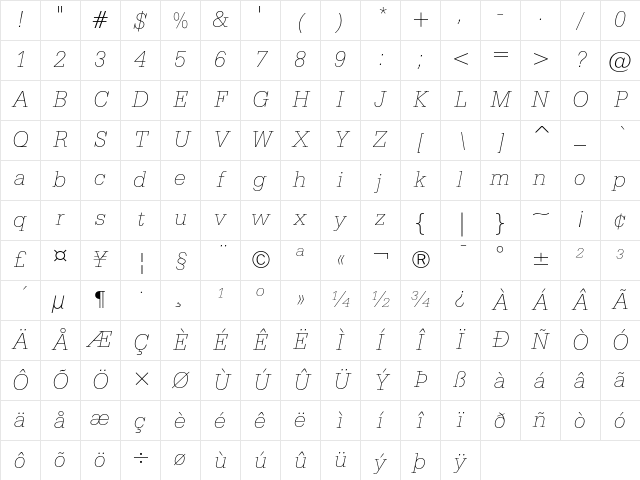
Serifa Thin Italic
Complete Serifa Thin Italic glyph index. Displaying only characters natively supported by Serifa Thin Italic font.
Design Context for Serifa
Serifa carries the refined structure of traditional serif typography, with bracketed terminals and considered proportions that communicate credibility and craft. The slanted form adds forward momentum and visual energy. Its slender proportions lend an understated elegance to any composition.
Pro Tip: Use Serifa with generous line-spacing for the most refined reading experience - its light weight benefits from room between lines.